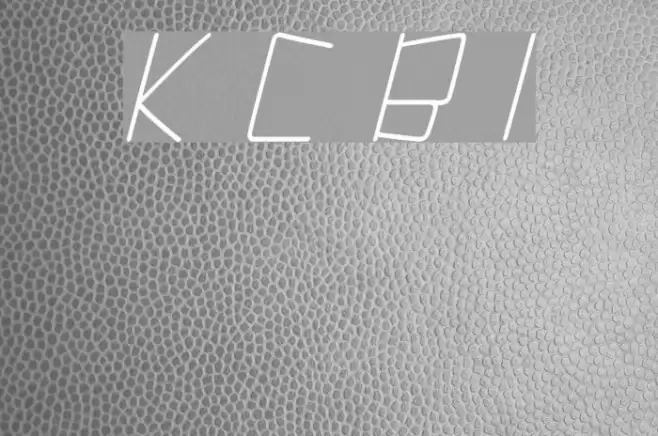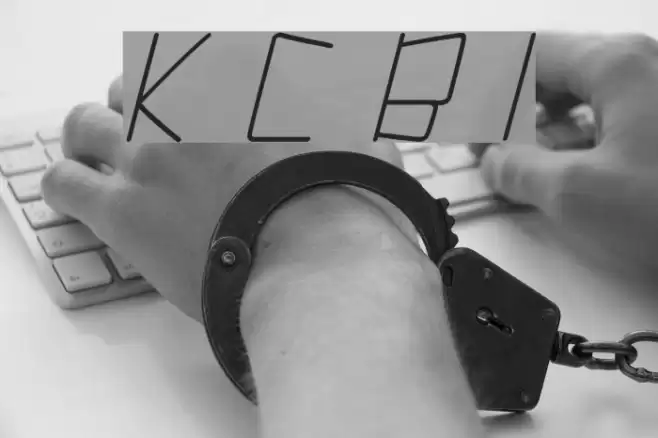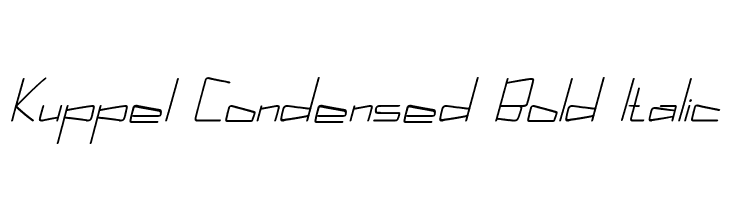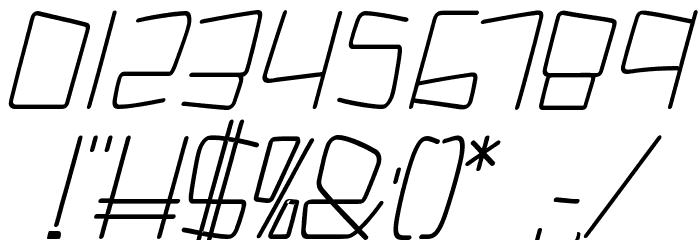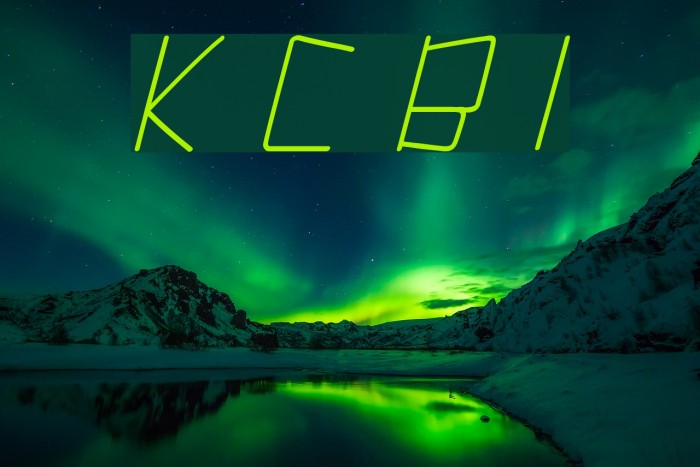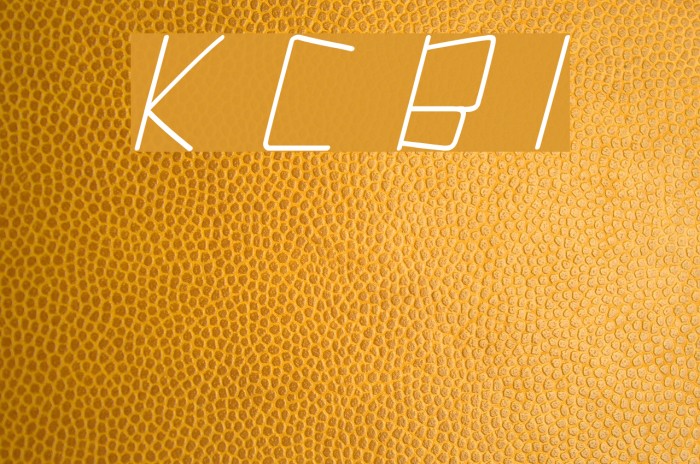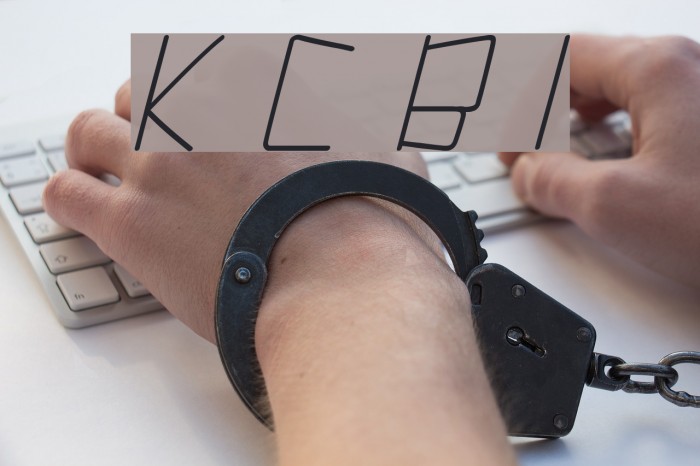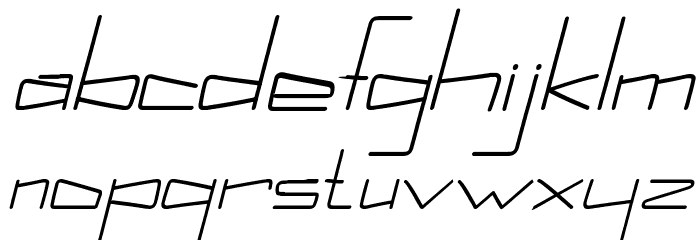
Kuppel Condensed Bold Italic Font
Kuppel Condensed Bold Italic Description
This font features a modern, geometric design with a condensed and italicized style. The characters are bold and have a distinct angularity, giving them a futuristic and dynamic appearance. The uppercase and lowercase letters maintain a consistent slant, enhancing the italic effect. The numbers and special characters follow the same design principles, ensuring uniformity across all glyphs. The strokes are uniform in thickness, providing a clean and streamlined look. This font is well-suited for projects that require a contemporary and edgy aesthetic.
A modern, geometric, condensed, and italicized font with bold strokes from Uncategorized fonts.